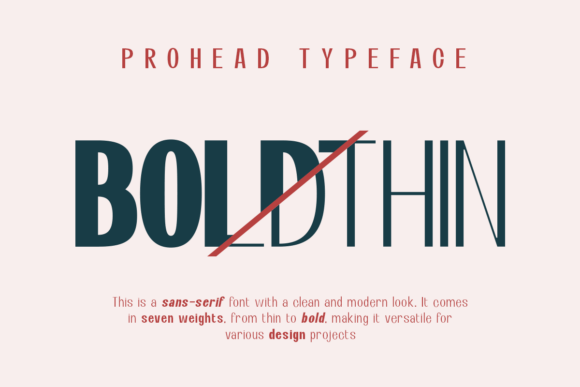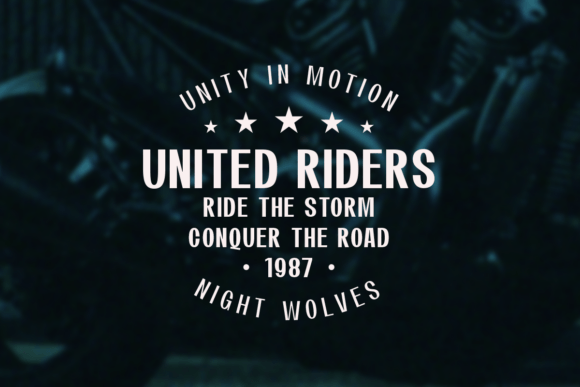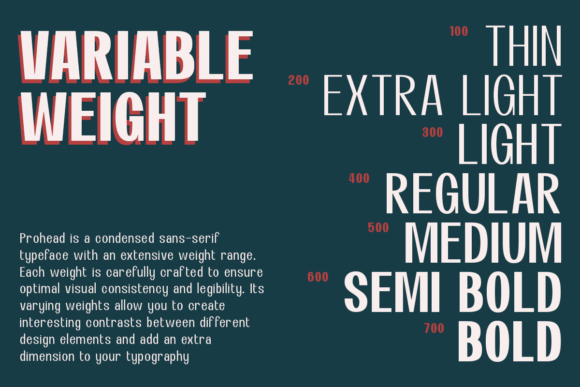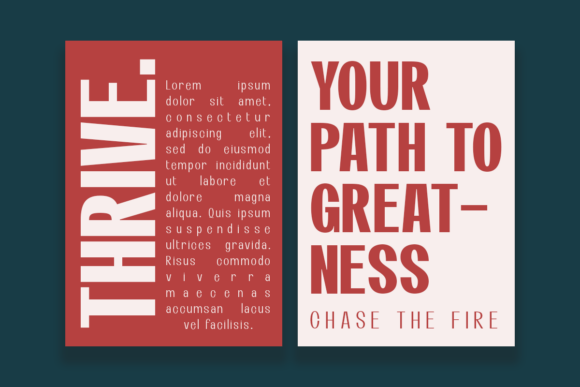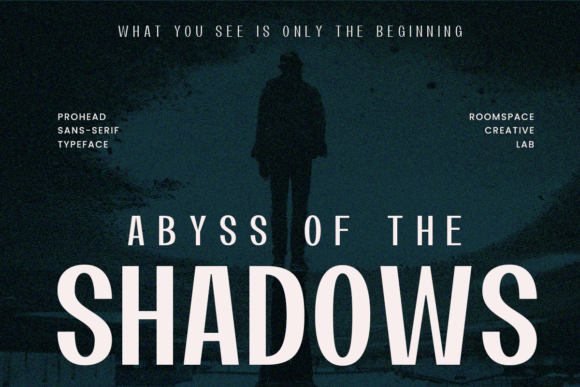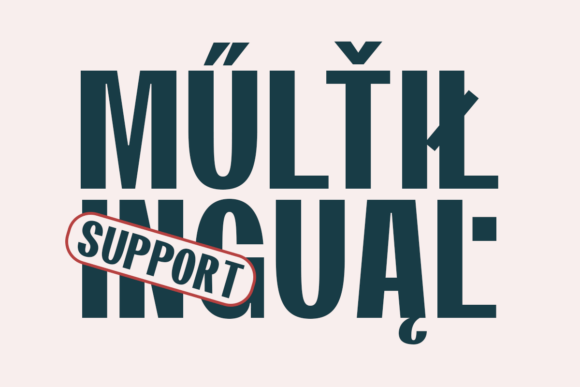
Introduction to Prohead Font
Have you ever found yourself stuck on a creative project, searching for the perfect font to elevate your design? It’s a common struggle many designers face, but what if I told you there’s a solution that can take your designs to the next level? Enter Prohead Font, a modern sans-serif condensed font that’s about to become your new go-to design resource.
With its clean and professional look, Prohead Font is the perfect choice for logos, branding, web design, packaging, and more. Its 7 versatile weights offer the flexibility to create bold headlines, refined body text, and everything in between, making it an ideal addition to any design project. Whether you’re working on a high-quality logo design or a free download template, Prohead Font adapts seamlessly to any design style, giving you the freedom to focus on what matters most – bringing your creative vision to life.
Key Features of Prohead Font
- High-quality design resource ideal for creative projects, including logos, icons, and graphics.
- Designed with precision, resulting in a crisp and clear font at any resolution, including 300 DPI and 600 DPI.
- Perfect for use in digital design, signage, and branding projects where a clean and modern aesthetic is desired.
- Supports a wide range of languages, making it a versatile font for global creative projects.
Honest Review: Prohead Font
One of the standout features of the Prohead Font is its versatility. It comes with a range of styles and weights, making it perfect for a variety of design projects. The font also features a transparent background, which is a nice touch for designers who like to customize their designs.
- High-quality design that looks great on various devices
- ⚠️ Limited support for certain special characters and symbols
- ⚠️ May not be suitable for use in small font sizes
Overall, I’m impressed with the Prohead Font. It’s a solid choice for designers working on creative projects that require a clean and modern look. While it’s not perfect, the font’s strengths far outweigh its limitations, making it a great addition to any design resource collection.
Prohead Font
Tips for Getting the Most Out of Prohead Font
For the best results, use the Prohead Font in conjunction with other high-quality design elements. Experiment with different font sizes, colors, and effects to create unique and eye-catching designs.
The Prohead Font is suitable for a wide range of creative projects, including logos, brochures, business cards, and social media graphics. Its versatility and high quality make it an excellent choice for designers of all levels.
Montserrat and Prohead Font share similarities in their modern design aesthetic, but Montserrat offers more versatility and a wider range of font weights.
Abril Fatface is a beautiful and elegant script font perfect for adding a touch of sophistication to any design project. It’s available for free download and features a transparent background, making it easy to use in a variety of design contexts. Abril Fatface is an excellent alternative to Prohead Font for designers seeking a high-quality font with a unique, handwritten feel.